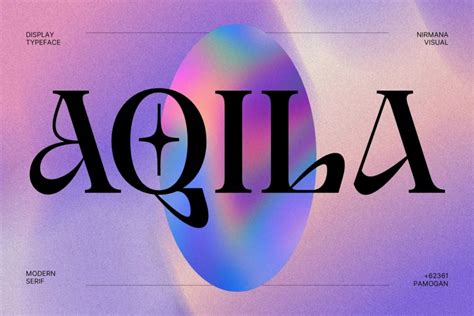
Aqila Luxury Font: Elevate Your Designs
Hey guys! Today, we’re diving deep into something super cool that can seriously level up your design game : the Aqila Luxury Font . If you’re all about adding a touch of class, sophistication, and sheer elegance to your projects, then you’ve stumbled upon the right place. We’re going to explore what makes this font so special, who it’s perfect for, and how you can start using it to make your designs unforgettable . Trust me, a good font is like the perfect accessory for your design – it can totally transform the whole vibe!
What Makes the Aqila Luxury Font So Special?
So, what’s the big deal about the Aqila Luxury Font, you ask? Well, it’s not just another pretty typeface. Aqila Luxury Font is meticulously crafted to embody a sense of opulence and exclusivity. Think high-end fashion brands, boutique hotels, sophisticated wedding invitations – that kind of vibe. The Aqila Luxury Font features a stunning blend of modern and classic elements. You’ll notice its clean lines, graceful curves, and often, a subtle flair that screams premium quality. It’s designed to be both readable and incredibly stylish, ensuring that your message comes across clearly while also making a powerful aesthetic statement. The versatility of this font is another huge plus. Whether you’re working on a logo, a website header, a social media graphic, or even print materials like business cards or brochures, the Aqila Luxury font adapts beautifully. It doesn’t overpower your content; instead, it enhances it, providing a sophisticated foundation that draws the eye and keeps it there. The designers behind Aqila Luxury Font clearly put a lot of thought into each and every character, ensuring that they work harmoniously together to create a cohesive and luxurious feel. This attention to detail is what sets truly premium fonts apart, and Aqila definitely delivers on that front. It’s the kind of font that makes people pause and think, “Wow, that looks expensive!” – and that’s exactly the impression you want to make for certain brands or projects. The subtle nuances in its letterforms, the balanced kerning, and the overall flow contribute to an experience that is both visually pleasing and deeply professional. It’s not just about looking good; it’s about conveying a sense of trust, quality, and refined taste. Whether you’re a seasoned graphic designer or just starting out, incorporating a font like Aqila Luxury Font into your toolkit can be a game-changer, allowing you to achieve that polished, high-end finish with ease.
Who Should Be Using the Aqila Luxury Font?
Alright, guys, let’s talk about who this Aqila Luxury Font is really made for. If you’re in the business of making things look fabulous and upscale , then you absolutely need to check this out. First off, graphic designers working on branding for luxury goods, high-end fashion, or exclusive services are going to find Aqila a dream come true. Imagine crafting a logo for a designer handbag company or a boutique skincare line – the Aqila Luxury Font will lend that immediate sense of prestige and quality. Wedding planners and stationery designers , listen up! If you’re designing invitations, save-the-dates, or even place cards for a sophisticated wedding, this font is your secret weapon. It adds that touch of romance and elegance that every special occasion deserves, making your stationery truly stand out. Small business owners who want to project a more premium image, this one’s for you too! Whether you run a high-end salon, a bespoke jewelry store, a gourmet food business, or offer consulting services, using the Aqila Luxury Font on your website, business cards, and marketing materials can significantly elevate your brand perception. It tells your customers that you value quality and attention to detail. Content creators and bloggers focusing on lifestyle, fashion, beauty, or travel will also find the Aqila Luxury Font incredibly useful. Think stunning blog post titles, eye-catching social media captions, or elegant quotes overlayed on images. It helps your content feel more polished and professional, attracting a discerning audience. Even authors looking for a sophisticated font for their book covers or internal headings can benefit. The Aqila Luxury Font can convey a sense of genre – perhaps a romance novel, a historical drama, or a high-stakes thriller – with just its presence. Ultimately, if your goal is to communicate sophistication, exclusivity, and premium quality, then the Aqila Luxury Font is a fantastic choice. It’s versatile enough to be adapted across various industries, but its core strength lies in its ability to instantly imbue any design with a sense of luxury and refinement. It’s not just a font; it’s a statement piece for your brand or project. So, don’t be afraid to experiment and see how this gorgeous typeface can transform your visual identity!
How to Incorporate Aqila Luxury Font into Your Designs
Now that you’re hyped about the Aqila Luxury Font , let’s get practical, guys! How do you actually use this amazing typeface to make your designs pop? It’s all about strategic placement and pairing. First things first, less is often more when it comes to luxury. You don’t need to use the Aqila Luxury Font for every single word in your design. Think of it as your headline or key text font. Use it for your main title, a compelling tagline, or important calls to action. This makes the font’s impact even stronger because it’s used sparingly and effectively. For body text, consider pairing the Aqila Luxury Font with a simpler, more readable sans-serif or serif font. This creates a beautiful contrast and ensures that your longer pieces of text are easy on the eyes. A clean, minimalist font will complement the elegance of Aqila without competing with it. For instance, you could use Aqila for your brand name and a classic font like Open Sans or Lato for the descriptive text. Hierarchy is key . Use different weights and sizes of the Aqila Luxury Font (if available) to create a visual hierarchy. A bold, larger version for your main heading, and a lighter, smaller version for a sub-heading can guide the reader’s eye smoothly through your design. Don’t be afraid to play with spacing . Proper kerning (the space between individual letters) and leading (the space between lines of text) are crucial for a luxurious feel. Many design software programs allow you to adjust these settings precisely. Getting the spacing just right can elevate your design from good to absolutely stunning . Consider the context . The Aqila Luxury Font is perfect for formal invitations, premium product packaging, elegant website headers, and sophisticated branding. Avoid using it in overly casual or playful designs where its inherent elegance might feel out of place. Use it for emphasis . Highlight key words or phrases within a sentence using the Aqila Luxury Font to draw attention to them. This works exceptionally well for quotes or special offers. Finally, test it out . Before finalizing your design, view it on different devices and at different sizes. Ensure the Aqila Luxury Font remains legible and maintains its luxurious appeal across all platforms. Experimenting with these tips will help you harness the full power of the Aqila Luxury Font , ensuring your designs not only look good but feel exclusive and high-quality. Happy designing, everyone!
Final Thoughts on Aqila Luxury Font
So there you have it, folks! We’ve explored the magic of the Aqila Luxury Font , talked about who it’s perfect for, and how you can integrate it seamlessly into your design projects. This isn’t just about picking a font; it’s about choosing a tool that can significantly enhance your brand’s image and communicate a message of quality and sophistication. The Aqila Luxury Font truly stands out with its elegant design and versatile application. Whether you’re crafting a high-end brand identity, designing exquisite wedding invitations, or simply want to add a touch of class to your digital presence, Aqila is a stellar choice. Remember, the key is to use it thoughtfully – let its luxurious details shine by pairing it with complementary fonts and ensuring proper spacing and hierarchy. By doing so, you’re not just using a font; you’re making a statement. It’s about conveying prestige, attention to detail, and a commitment to excellence. We hope this deep dive has inspired you to explore the Aqila Luxury Font and see how it can elevate your own creative endeavors. Go ahead, give it a try, and watch your designs transform into something truly special. Happy designing, and keep creating amazing things!